In the ever-evolving world of design, typography plays a pivotal role in conveying messages, setting tones, and establishing brand identities. Modern serif and sans serif fonts have become essential tools for designers seeking to create clean, elegant, and contemporary visuals. Whether you’re working on branding, editorial layouts, web design, or packaging, the right font can make all the difference.
In this article, we’ve curated a list of 15 exceptional modern serif and sans serif fonts from renowned foundries like PutraCetol Design Studio and Envato Elements. These fonts are chosen for their versatility, aesthetic appeal, and ability to enhance various design projects.
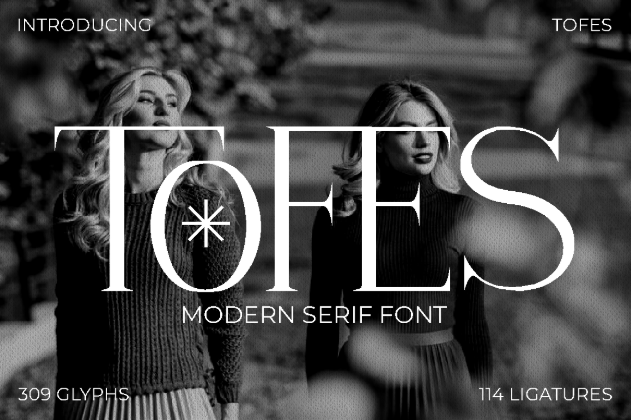
Tofes is a versatile typeface that exudes elegance and sophistication. Its clean lines and modern look make it perfect for projects requiring a touch of luxury and class, such as branding, packaging, and logos. Creative Fabrica
2. Yenisei – Modern Serif Font
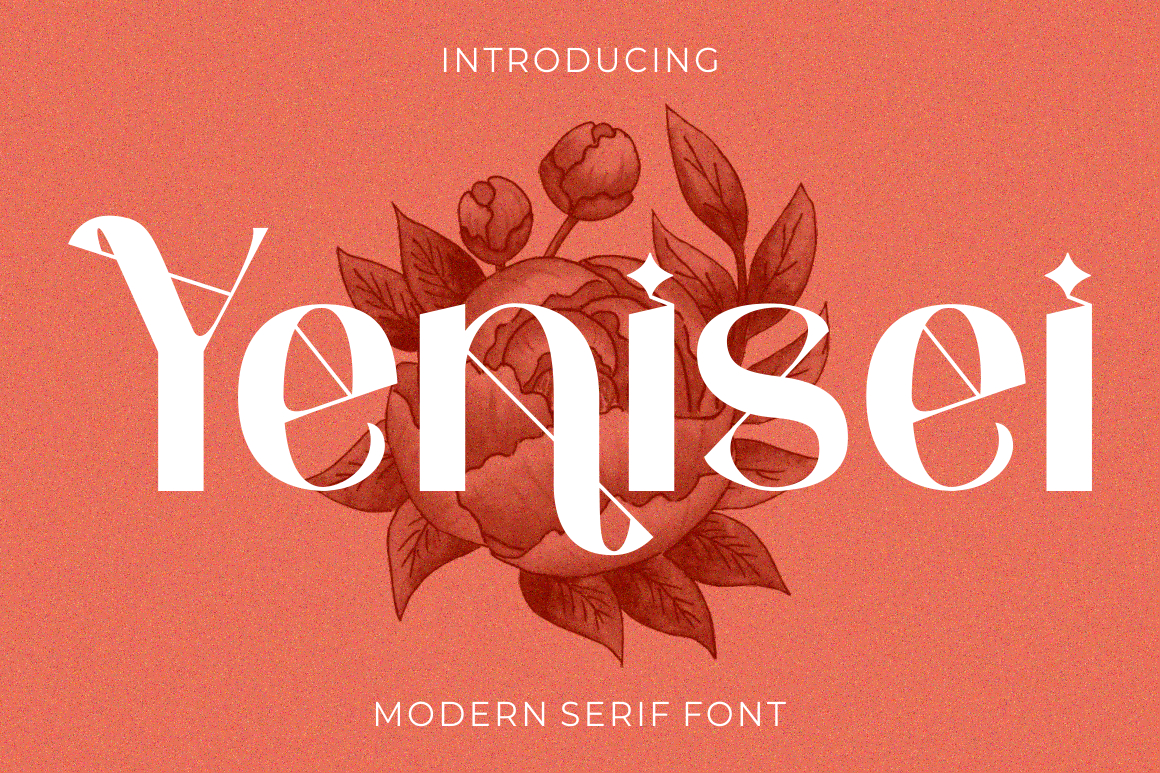
Inspired by unique typography and elegant lettering, Yenisei combines luxury serif elements with modern typography styles. It features OpenType options, including alternates and end swashes, aiding in creating beautiful artwork. Download free fonts+3FontBundles.net+3
Arash is a modern and elegant display font, ideal for branding, headlines, and editorial design. It features a clean and minimalist style with sleek lines and rounded edges, offering versatility across various design settings. PutraCetol Design Studio
4. Gilded Glint – Elegant Serif Font
Gilded Glint is an elegant serif font that brings a touch of luxury to any design. Its refined details and classic structure make it suitable for high-end branding and editorial projects.
5. Merside – Premium Serif Font
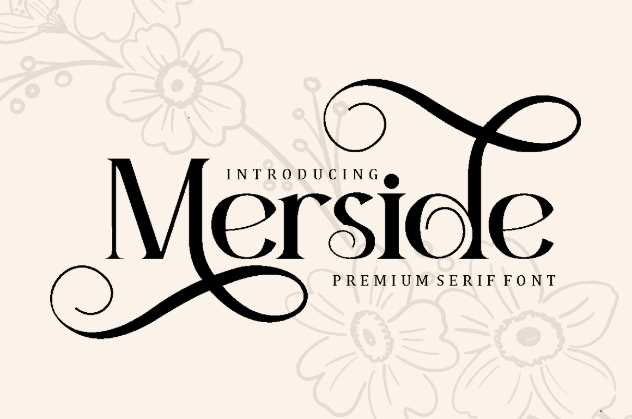
Merside is a stunning typeface that effortlessly exudes sophistication and elegance. Its clean and crisp lines make it a versatile choice for a wide range of design projects, from high-end branding to classic book covers and posters. Download free fonts+3Dribbble+3Creative Fabrica+3
6. Corvail – Elegant Sans Font
Corvail is an elegant sans serif font that combines simplicity with sophistication. Its clean lines and modern aesthetic make it ideal for branding, editorial design, and more.
7. Sans Fierro – Modern Sans Serif Font
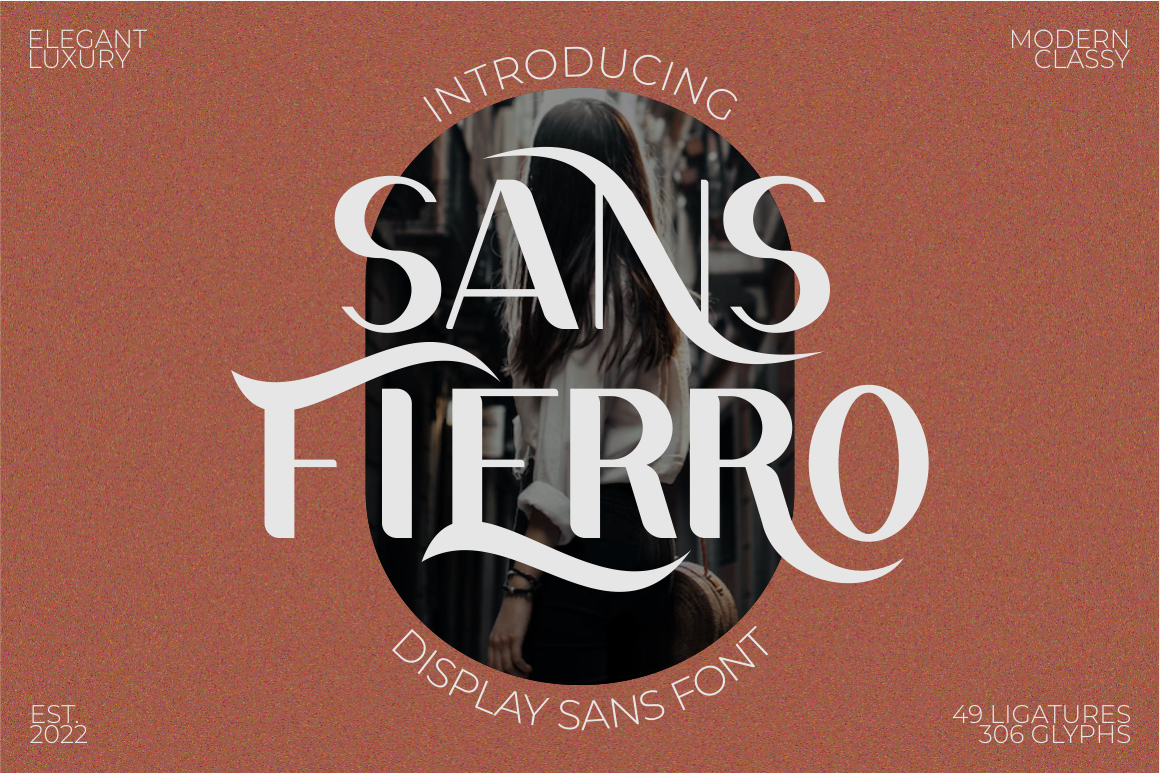
Sans Fierro is a sophisticated, charming sans serif typeface crafted by PutraCetol Studio. With a total of 534 glyphs and 359 alternates, it offers extensive options for creating unique lettering combinations. Download free fonts
8. Violense – Stylish Display Font
Violense is a sharp-looking serif display typeface inspired by unique typography and lettering. Its distinctive style makes it suitable for various design applications, adding a touch of elegance and modernity. Download free fonts+1FontBundles.net+1
9. Flece Display – Modern Sans Font
Flece Display is an authentic display font featuring two distinct styles: calligraphy and sans serif. This unique combination offers a luxurious and contemporary feel, making it suitable for logos, titles, book covers, and more. Download free fonts+1Creative Market+1
10. Lilard – Elegant Serif Font
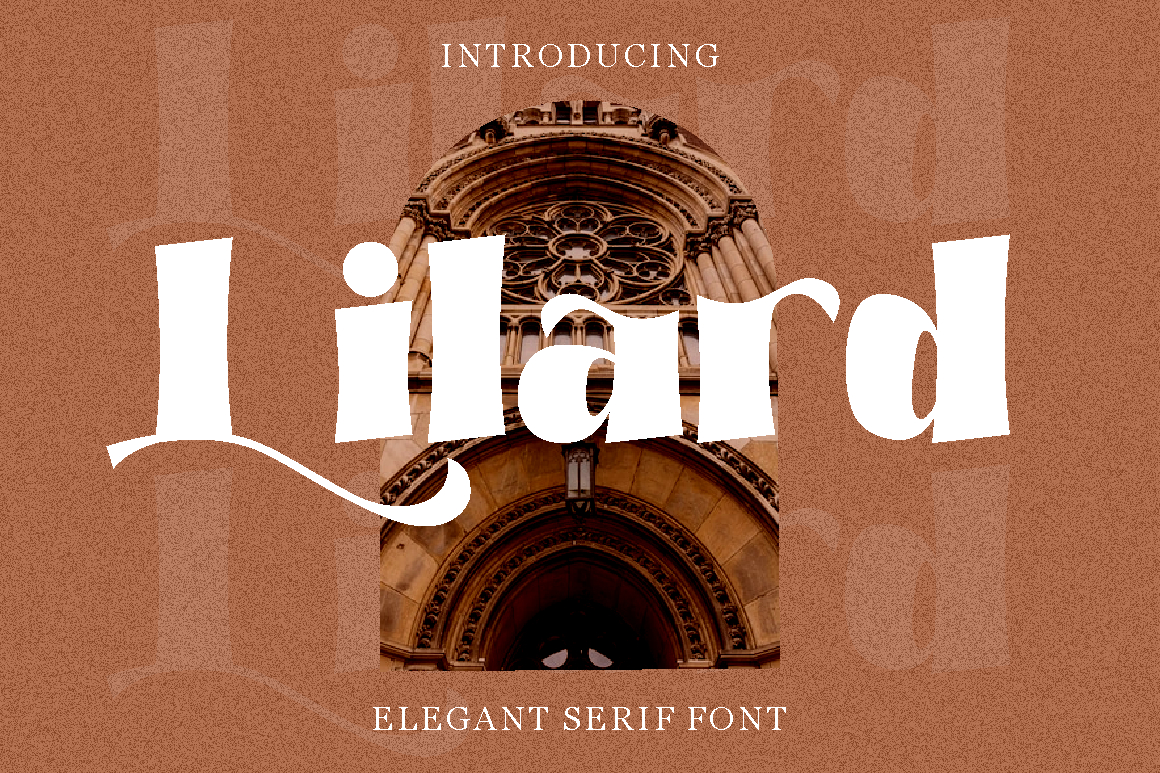
Lilard is an elegant serif font designed by PutraCetol Studio. Its classic structure and refined details make it a perfect choice for projects requiring a touch of sophistication and timeless appeal.
11. Carien – Modern Serif Font (Envato Elements)
Carien is a modern serif font that combines traditional elegance with contemporary design elements. Its balanced proportions and clean lines make it suitable for various design projects, including branding and editorial work.Pinterest
12. Musont – Modern Sans Serif Font (Envato Elements)
Musont is a modern sans serif font that offers a sleek and minimalist aesthetic. Its versatility makes it ideal for a wide range of applications, from web design to corporate branding.
13. Gendy – Modern Sans Font (Envato Elements)
Gendy is a modern sans serif font that brings a fresh and clean look to any design. Its simplicity and readability make it a great choice for both digital and print media.Artofit
14. CS Brian – Contemporary Sans Serif Font (Envato Elements)
CS Brian is a contemporary sans serif font that combines modern design with classic sensibilities. Its clean lines and versatile style make it suitable for various design contexts, including corporate and editorial projects.Envato Elements
15. Bilgon – Modern Serif Font (Envato Elements)
Bilgon is a modern serif font that offers a unique blend of classic and contemporary design elements. Its distinctive character shapes and elegant structure make it a standout choice for branding and editorial design.
🛠️ Tips for Choosing the Right Font
- Understand the Project Requirements: Consider the purpose of your design and choose a font that aligns with the project’s goals and audience.